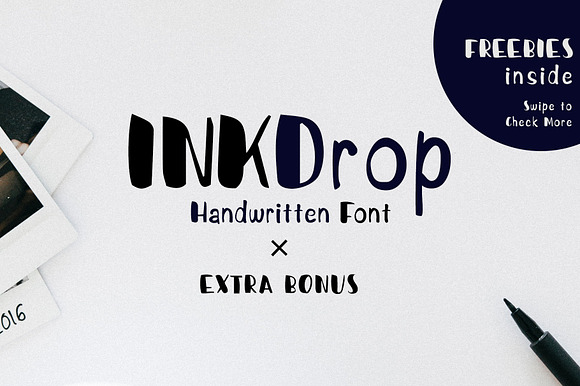
Inkdrop Handwritten Font Bonus
Happy to announce this Amazing Product Out For YOU All!! INKDROP Handwritten Font + BONUS This fun script hand written font is full of alphabets | Numerals | with Handmade Ink Style Illustrator Patterns
Why Inkdrop Handwritten Font Bonus is worth a look
Inkdrop Handwritten Font Bonus by Design Unique fits naturally into Branding, posters, packaging, typography.